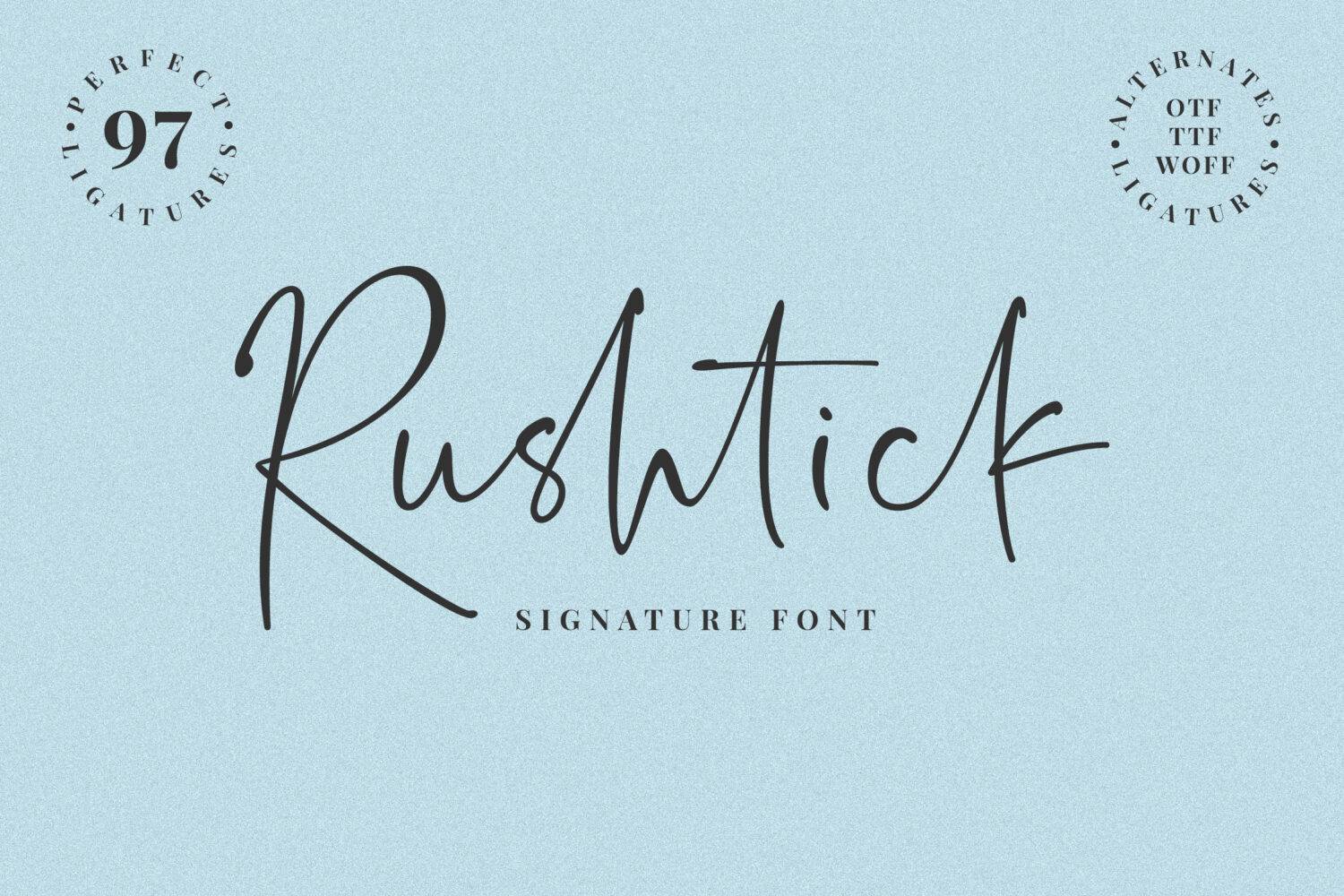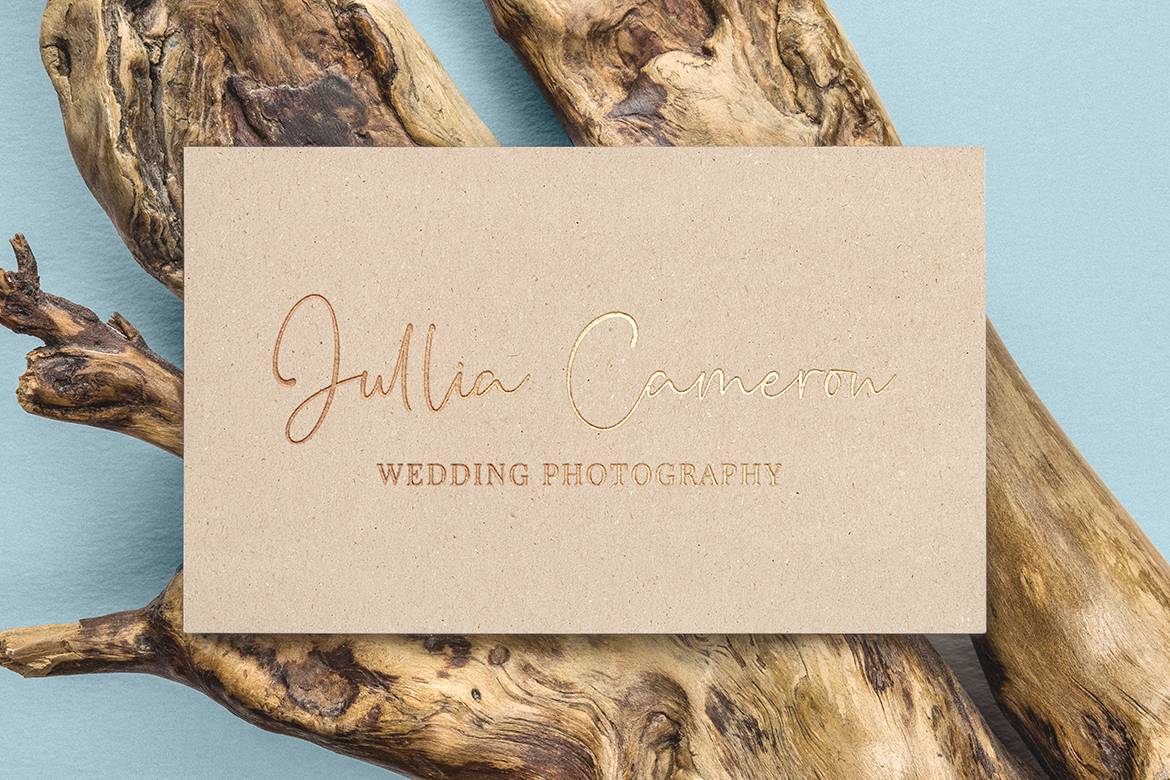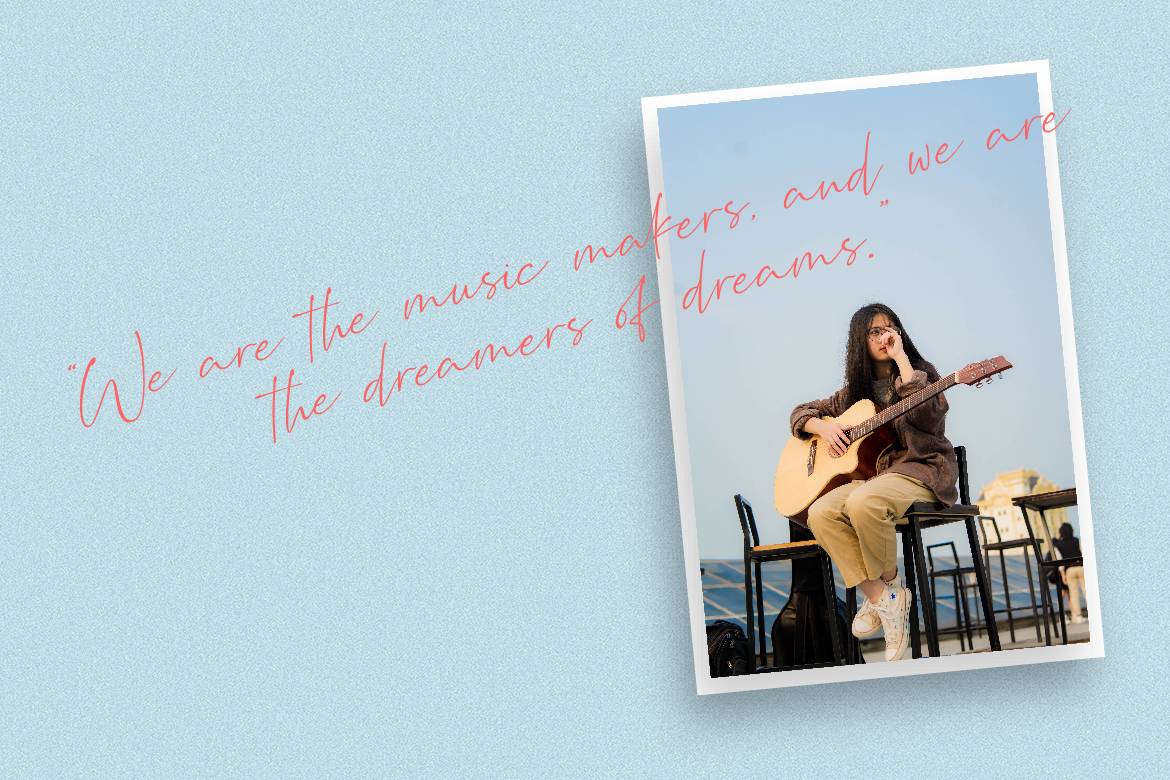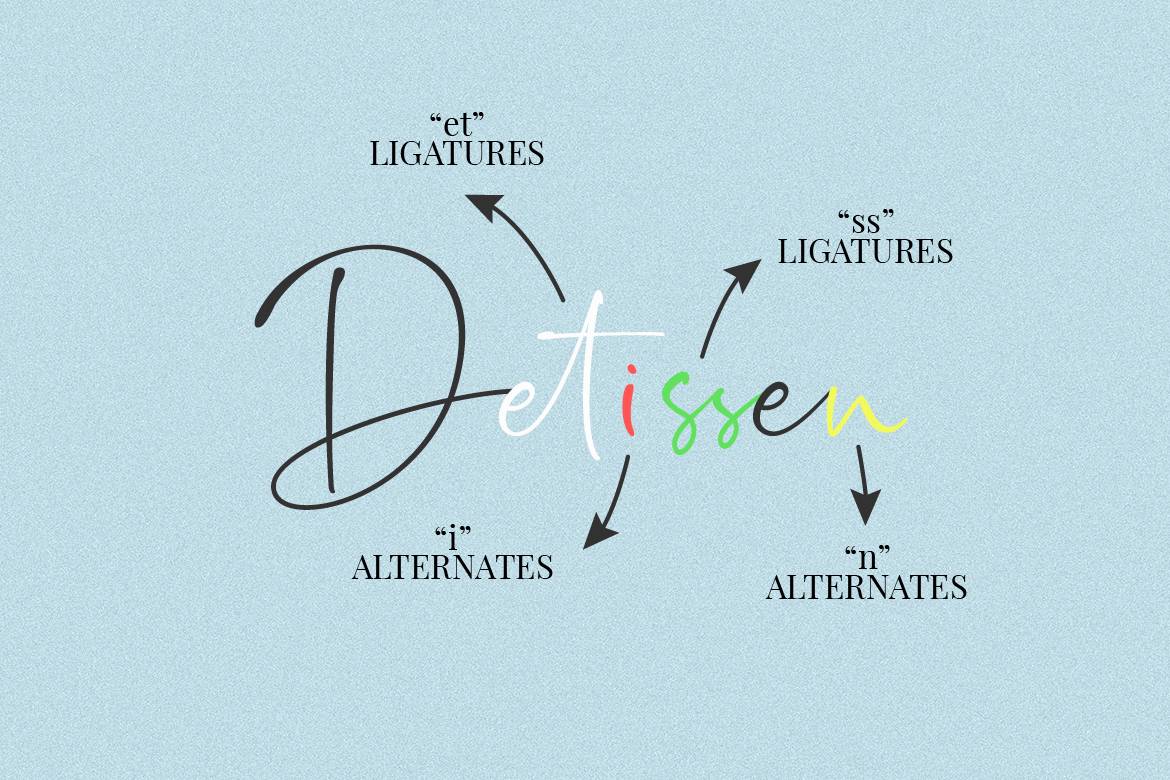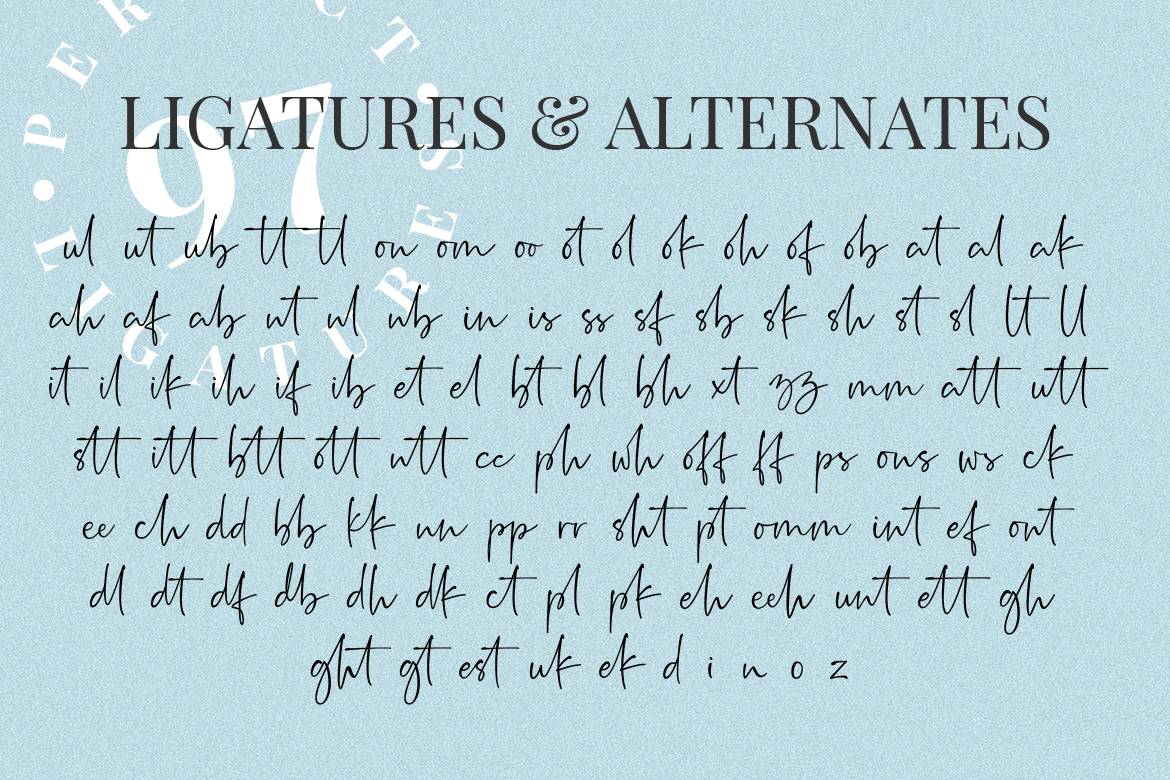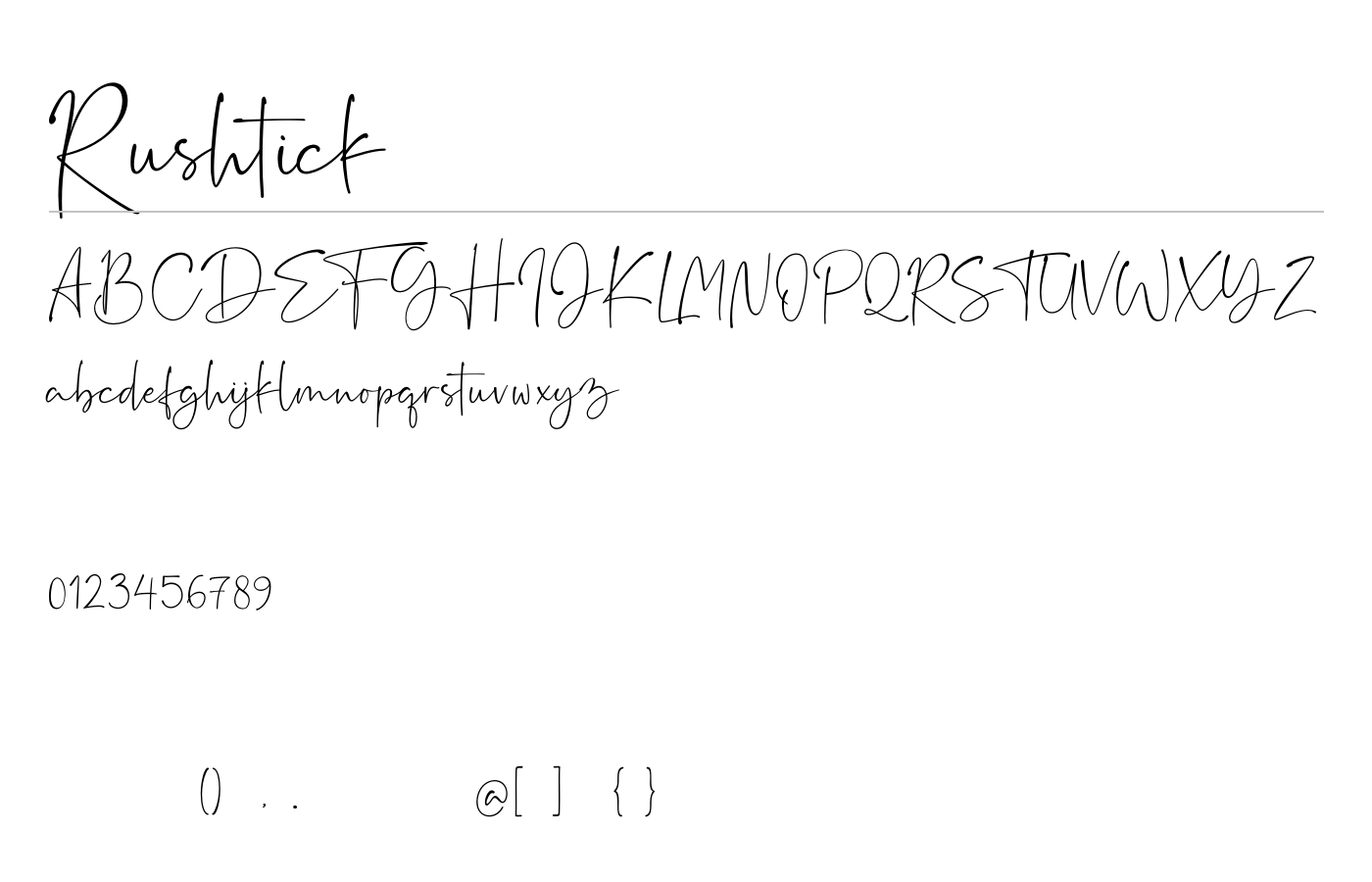
Rushtick Signature is a delicate, handwritten script font with a tall, slender appearance and fine, flowing strokes that mimic natural penmanship. Its light weight and elegant curves create a personal, refined feel, making it perfect for branding, invitations, and social media where a stylish, intimate touch is desired. This font works best in designs that need a graceful yet modern handwritten charm.
Rushtick Signature Font
About Rushtick Signature Font